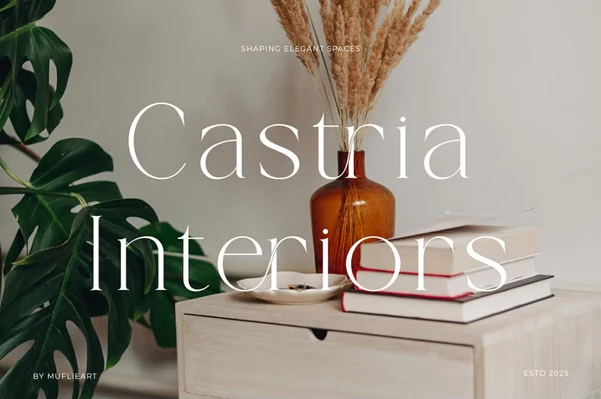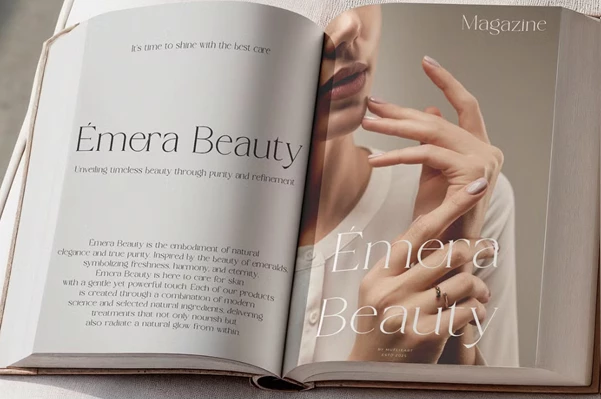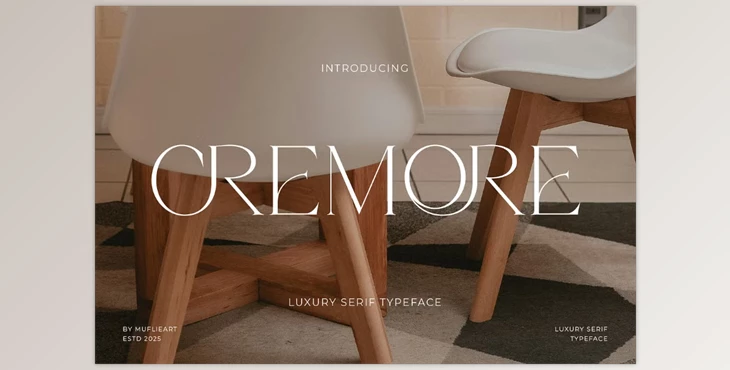
Cremore - Luxury Serif Typeface:
Presenting the Cremore Luxury Serif Typeface. A sophisticated yet modern, contemporary yet minimalistic font made to elevate the look of any project from website to modern logo, branding, social media, wedding invitations, and magazines. This modern and simplistic font boasts a unique and classy look to its capital letters, with alternative characters and ligatures, making it the perfect serif font for your projects.
Some great features of Cremore - Luxury Serif Typeface:
- Includes uppercase and lowercase letters
- Supports multilingual characters
- Numbers and punctuation included
- Alternative and ligature options for some fonts